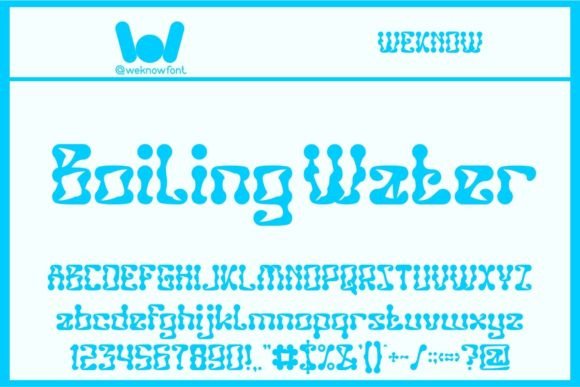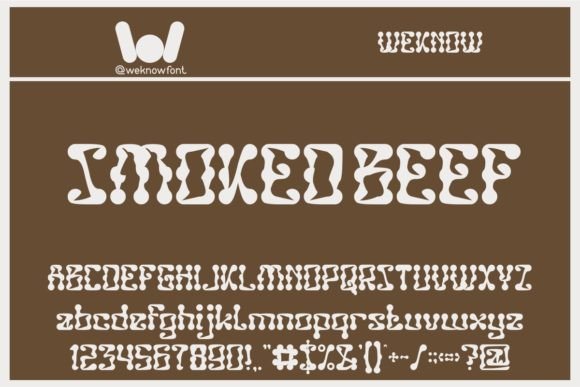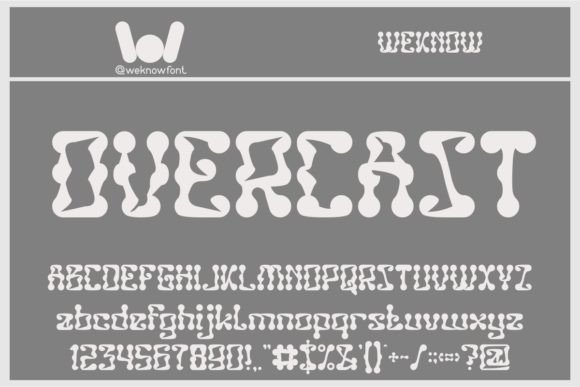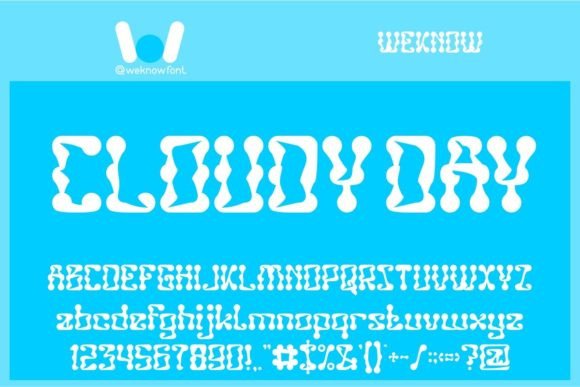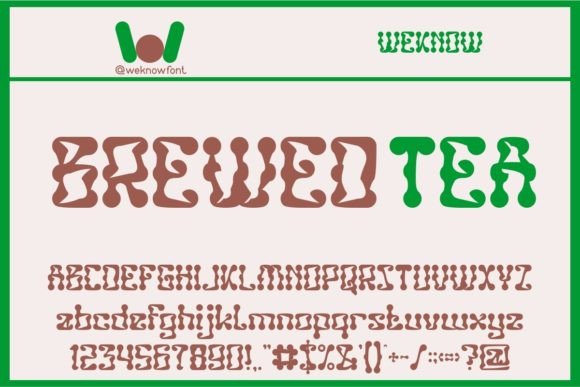
Brewed Tea Font: The Perfect Blend for Your Creative Projects
Are you a designer, crafty enthusiast, or simply someone who appreciates unique typography? Look no further than the Brewed Tea Font, a funky and modern display font that’s perfect for a wide range of creative projects. In this article, we’ll dive into the features, benefits, and uses of Brewed Tea Font, and explore how it can elevate your designs to the next level.
What is Brewed Tea Font?
Brewed Tea Font is a modern display font designed to make a statement. Its unique, hand-crafted style is perfect for adding a touch of personality to your designs. With its bold, playful, and eye-catching appearance, Brewed Tea Font is ideal for creating logos, logotypes, headlines, and other attention-grabbing elements.
Key Features of Brewed Tea Font
- Funky and Modern Style: Brewed Tea Font boasts a fresh, contemporary look that’s sure to turn heads.
- High-Quality Design: Crafted with precision and attention to detail, this font is perfect for both digital and print applications.
- Versatile: Use Brewed Tea Font for a wide range of projects, from logos and branding to posters, magazines, and more.
- Easy to Read: Despite its bold and playful style, Brewed Tea Font remains highly legible, making it perfect for headlines and titles.
Uses of Brewed Tea Font
So, where can you use Brewed Tea Font? The possibilities are endless! Here are some ideas to get you started:
- Logo Design: Create a memorable logo for your brand or business with Brewed Tea Font.
- Branding and Identity: Use Brewed Tea Font to develop a consistent visual identity across your brand’s marketing materials.
- Apparel Industry: Add a touch of personality to your t-shirts, hoodies, and other apparel with Brewed Tea Font.
- Posters and Flyers: Create eye-catching posters and flyers that grab attention with Brewed Tea Font.
- Digital Media: Use Brewed Tea Font in your YouTube videos, Instagram posts, and website designs to add a unique touch.
- Magazines and Books: Add a pop of personality to your magazine or book designs with Brewed Tea Font.
- Games and Comics: Use Brewed Tea Font to create engaging and playful titles for your games, comics, or cartoons.
Benefits of Using Brewed Tea Font